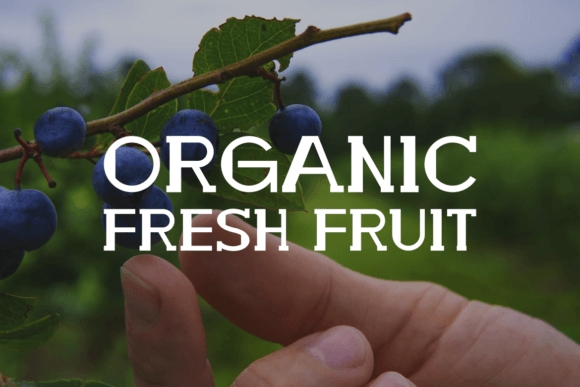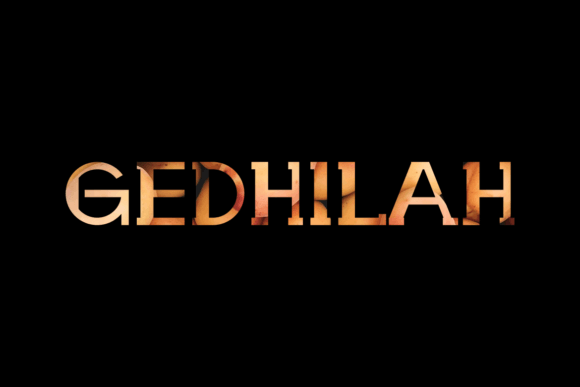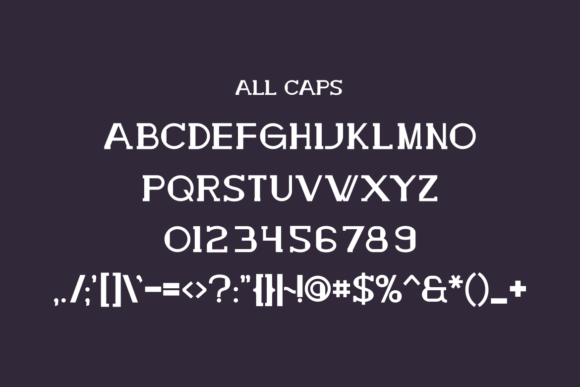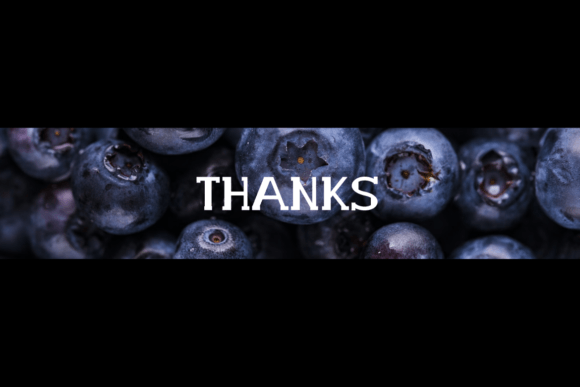
Gedhilah Font: The Bold and Distinctive Display Font for Your Branding Needs
In the world of typography, a font can make or break a brand’s identity. A well-designed font can elevate a brand’s visual appeal, convey its message, and leave a lasting impression on its audience. If you’re a designer, craftsperson, or brand owner looking for a bold and distinctive display font, look no further than Gedhilah Font. In this article, we’ll explore the features, benefits, and applications of Gedhilah Font, and why it’s perfect for your branding projects.
What is Gedhilah Font?
Gedhilah Font is a bold and distinctive display font designed to make a statement. Its unique and striking appearance makes it perfect for branding projects that require a strong visual impact. Whether you’re creating a logo, designing a sports-themed project, or developing a brand identity, Gedhilah Font is an excellent choice.
Key Features of Gedhilah Font
- Bold and Distinctive: Gedhilah Font is designed to stand out from the crowd. Its bold and distinctive appearance makes it perfect for headlines, titles, and branding projects that require a strong visual impact.
- Versatile: Gedhilah Font is versatile and can be used across various applications, including logos, sports themes, posters, and more.
- High-Quality: Gedhilah Font is a high-quality font designed to ensure clarity and legibility, even at large sizes.
- Easy to Read: Despite its bold appearance, Gedhilah Font is easy to read, making it perfect for use in a variety of contexts.
Benefits of Using Gedhilah Font
So, why choose Gedhilah Font for your branding projects? Here are some benefits of using this amazing font:
- Instant Recognition: Gedhilah Font’s bold and distinctive appearance ensures instant recognition and recall. Your brand will stand out from the competition and leave a lasting impression on your audience.
- Professional Look: Gedhilah Font gives your brand a professional and polished look, perfect for businesses, organizations, and individuals looking to establish a strong brand identity.
- Flexibility: Gedhilah Font is flexible and can be used across various applications, from digital media to print materials.
- Time-Saving: With Gedhilah Font, you can save time and effort in designing a custom font from scratch. This font is ready-to-use and can be easily integrated into your design projects.
Applications of Gedhilah Font
Gedhilah Font is perfect for a wide range of applications, including:
- Logo Design: Create a bold and memorable logo that stands out from the competition.
- Sports Themes: Design sports-themed projects, such as jerseys, posters, and flyers, with a bold and dynamic font.
- Branding Projects: Establish a strong brand identity with Gedhilah Font’s unique and distinctive appearance.
- Posters and Flyers: Create eye-catching posters and flyers that grab attention and convey your message effectively.
In conclusion, Gedhilah Font is a bold and distinctive display font perfect for branding projects that require a strong visual impact. Its versatility, high-quality design, and ease of use make it an excellent choice for designers, craftspersons, and brand owners. Whether you’re creating a logo, designing a sports-themed project, or developing a brand identity, Gedhilah Font is an excellent choice. So, why wait? Download Gedhilah Font today and take your branding projects to the next level!
- What is Gedhilah Font? Gedhilah Font is a bold and distinctive display font designed for branding projects.
- Is Gedhilah Font easy to read? Yes, despite its bold appearance, Gedhilah Font is easy to read and perfect for use in a variety of contexts.